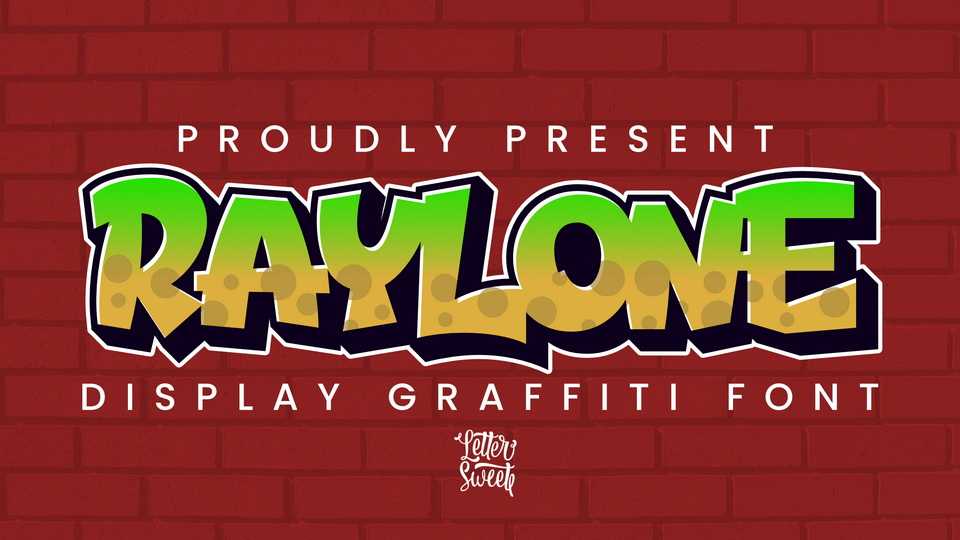
Download Raylone font, an edgy outlined display typeface. Infusing a cool, urban vibe, Raylone is perfect for enhancing the sophistication and contemporary appeal of your casual designs.